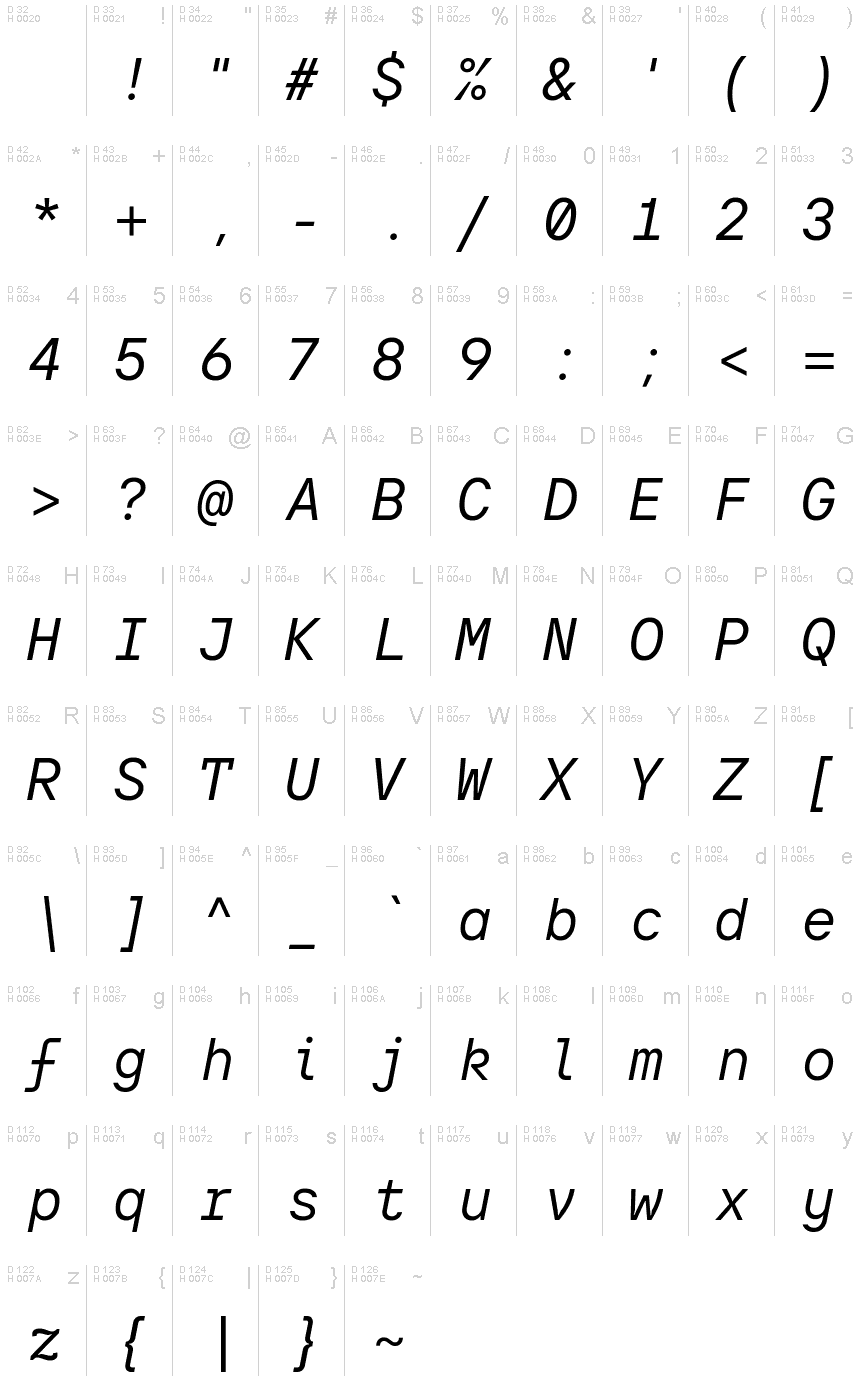
TT Interphases Pro Mn Vr It is a versatile sans serif font designed by TypeType Foundry. With its semi-light weight, this font exudes elegance and sophistication, perfect for projects that require a touch of refinement.
Its clean lines and modern aesthetic make it suitable for various design projects, such as branding materials, advertising campaigns, and editorial layouts. Whether you're creating a sleek corporate identity or a high-end fashion magazine, TT Interphases Pro Mn Vr It will elevate your designs with its understated yet impactful style.